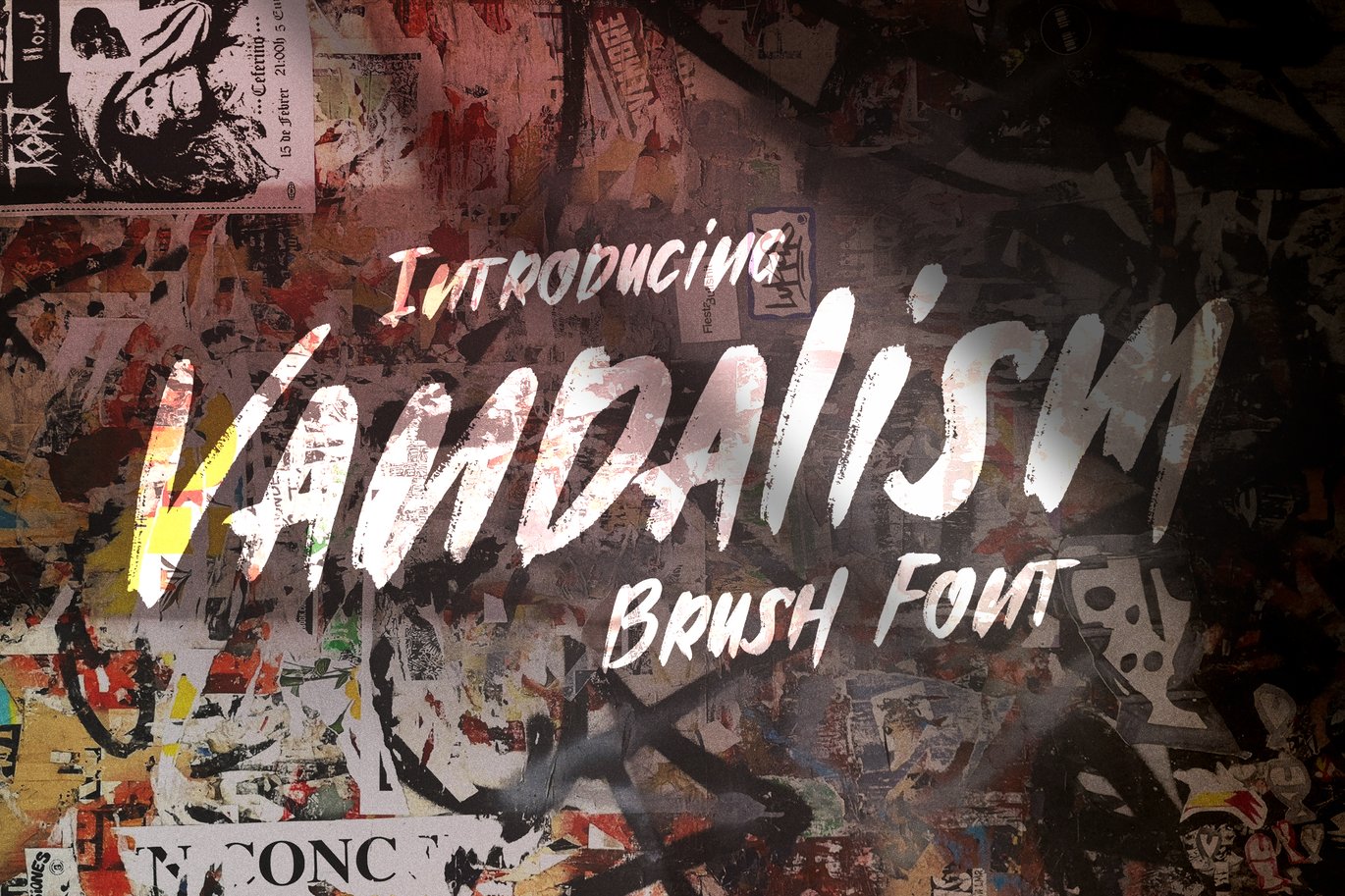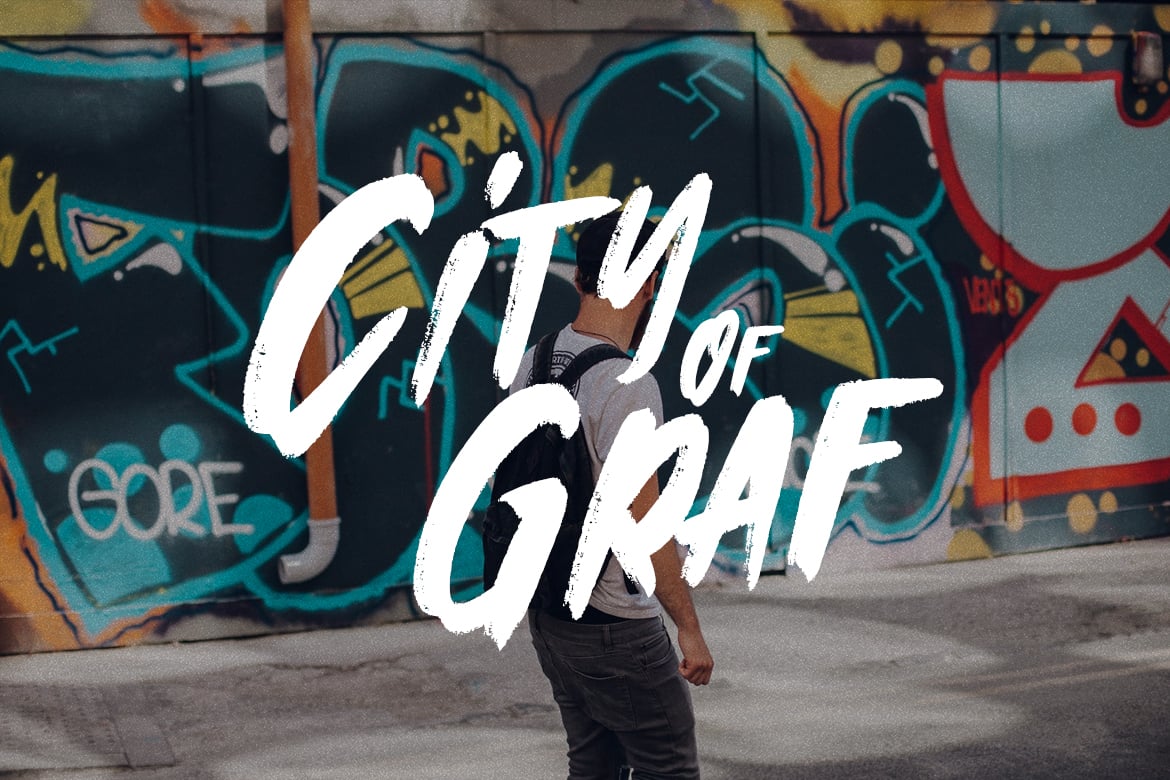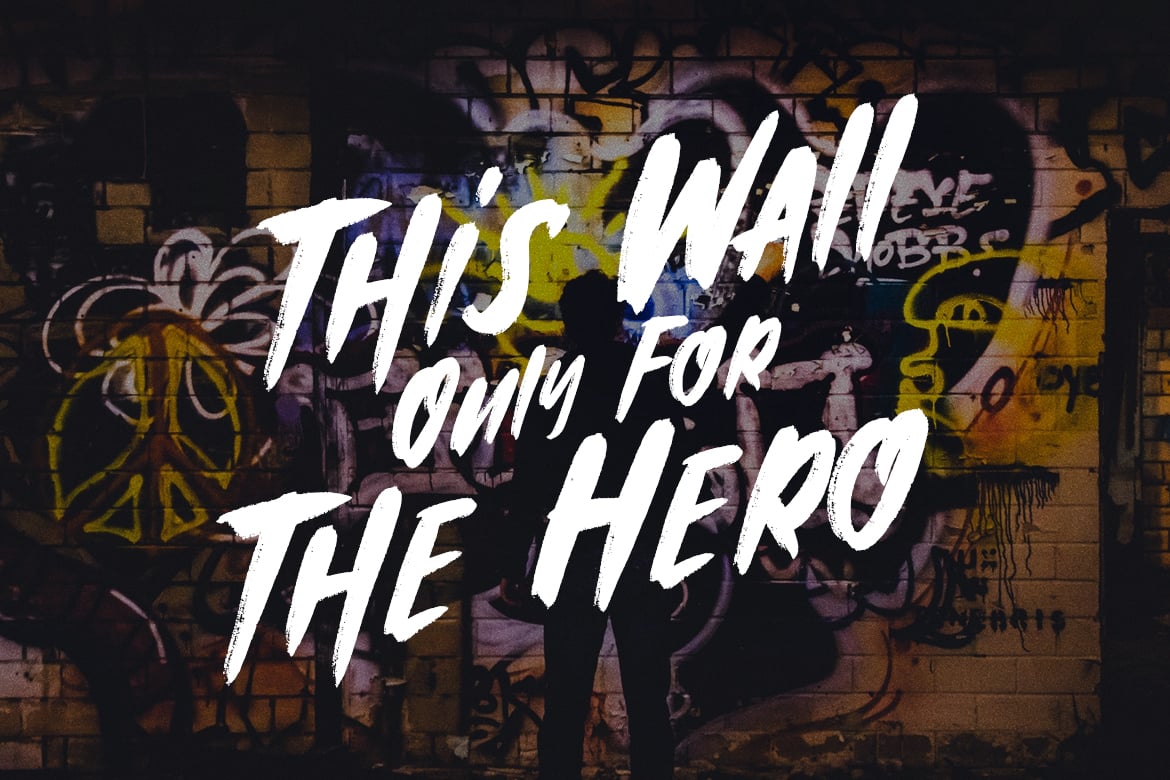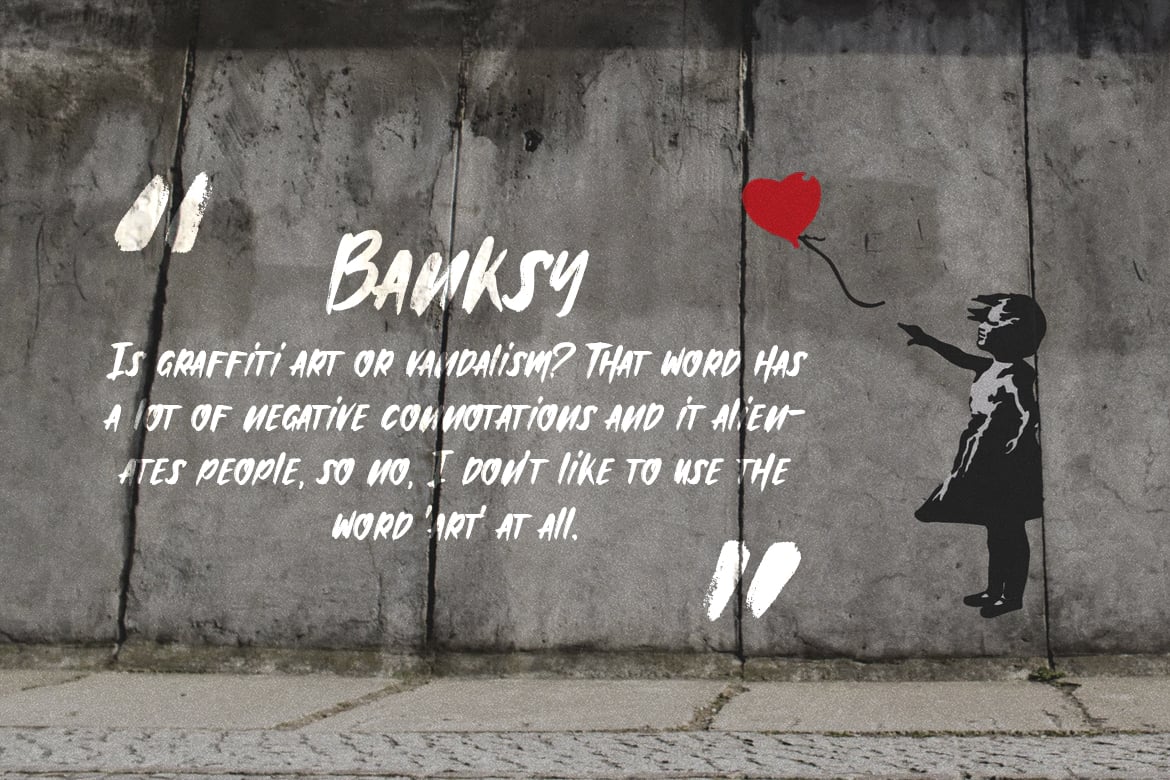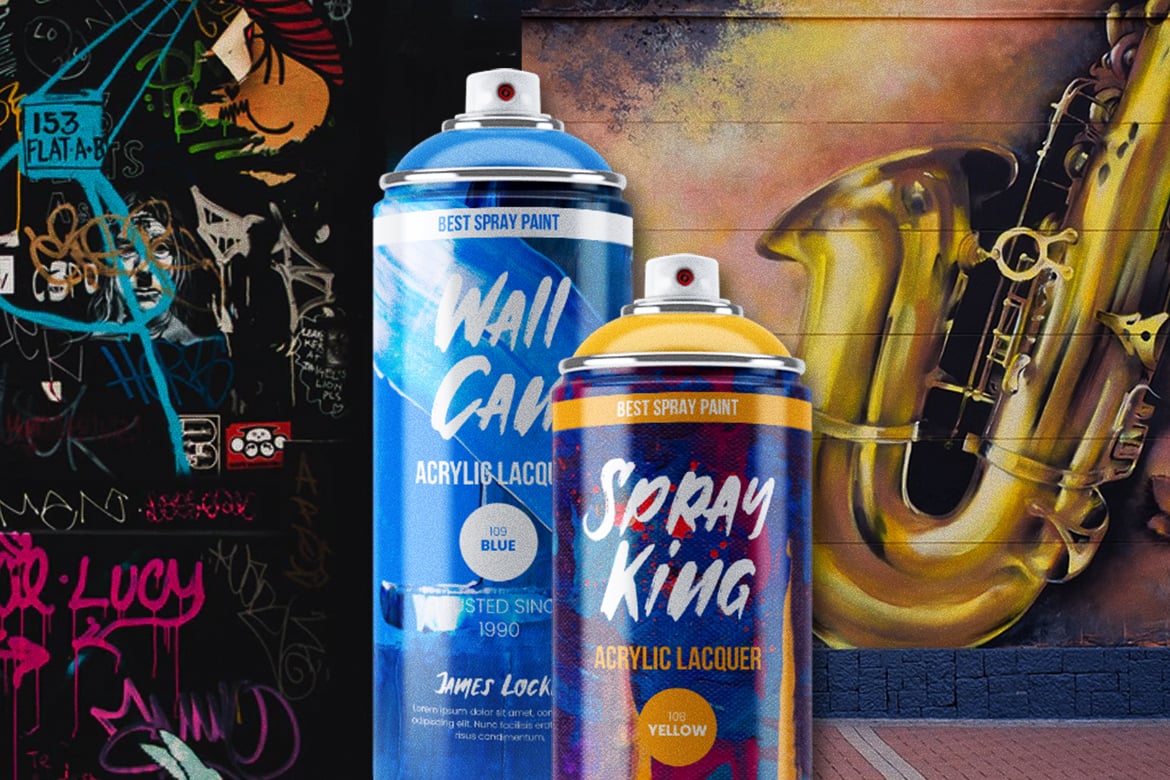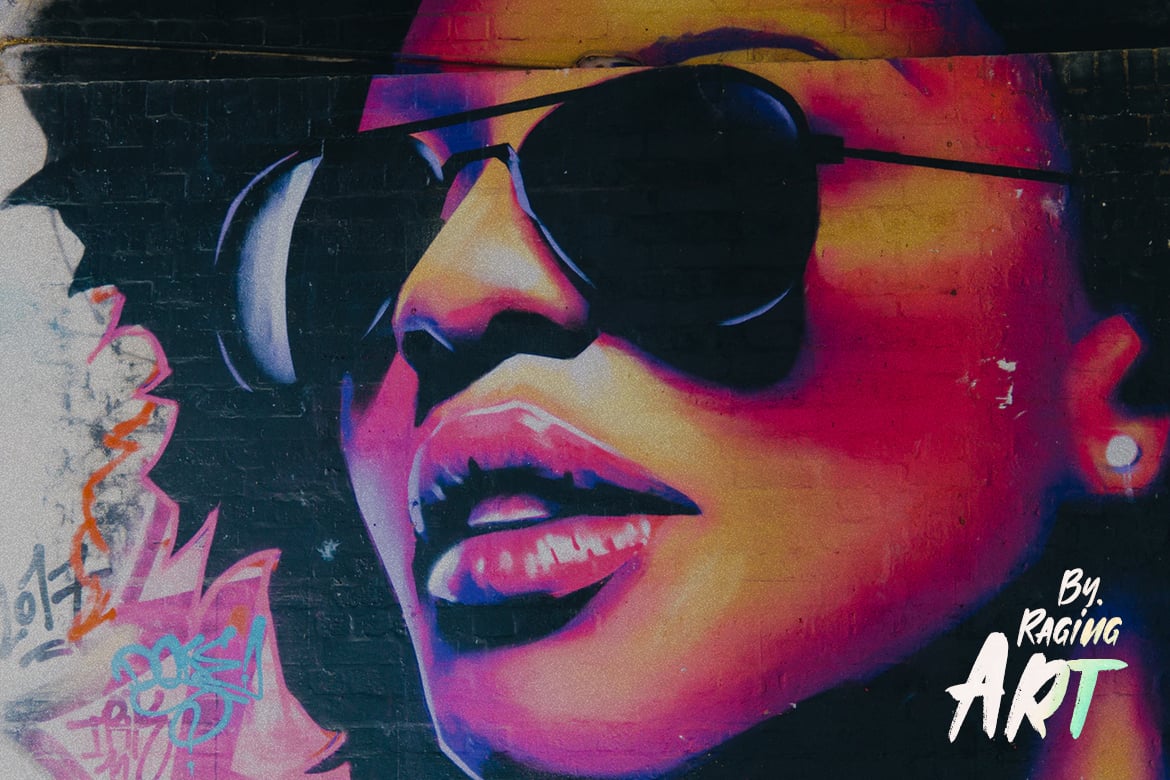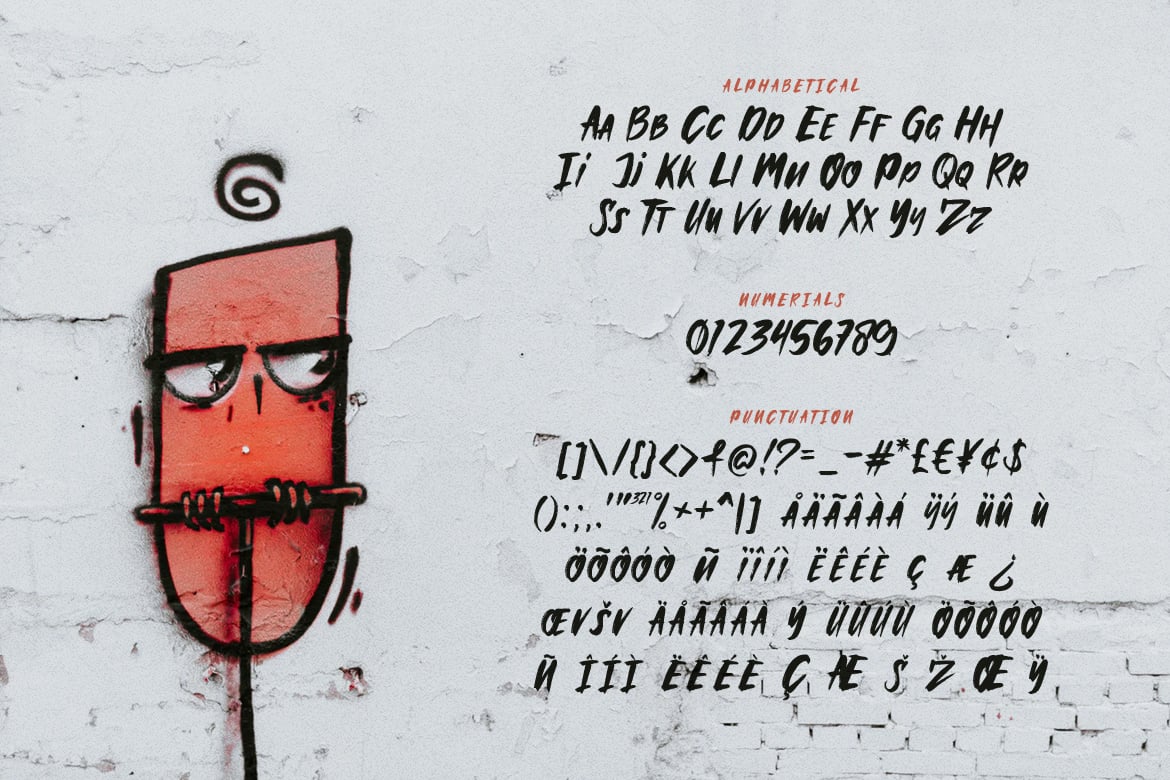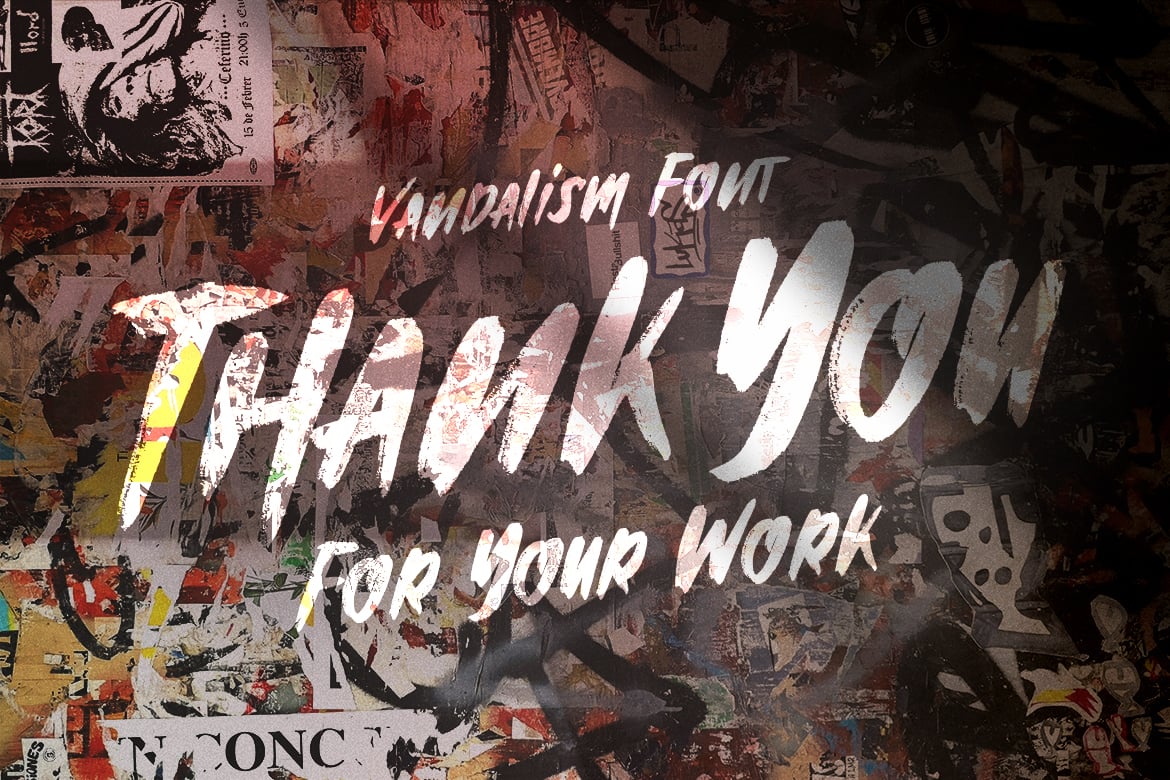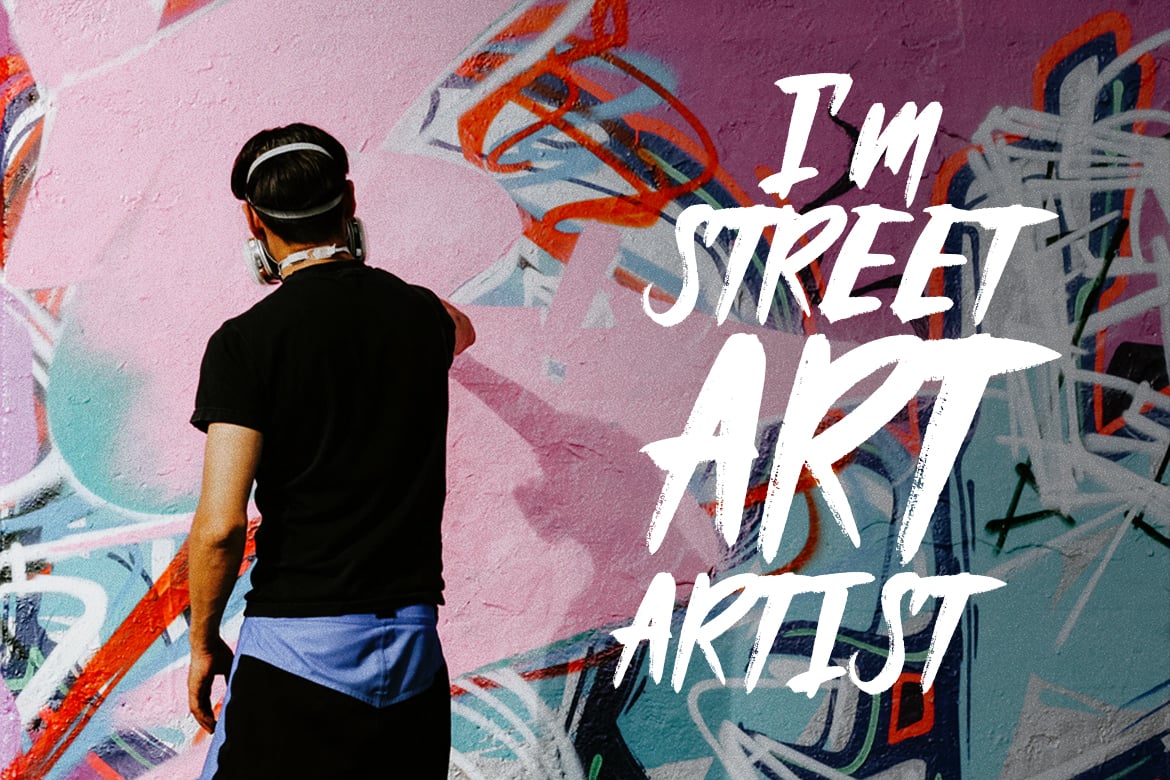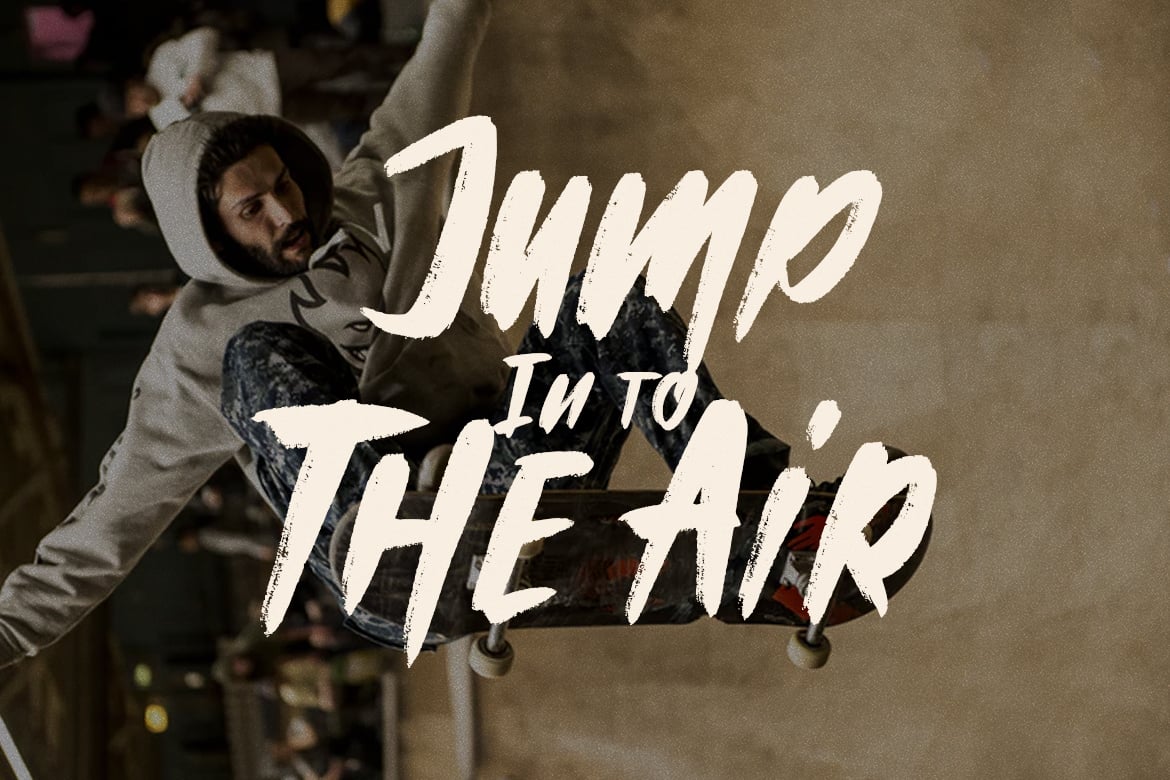
Vandalism – Urban Street Brush Font
Are you looking for a decorative brush font that fits with urban lifestyle? We can help! Try to download our Vandalism font. The font is suitable to use for many occasion such as branding, photography, quote, music, poster, and event.